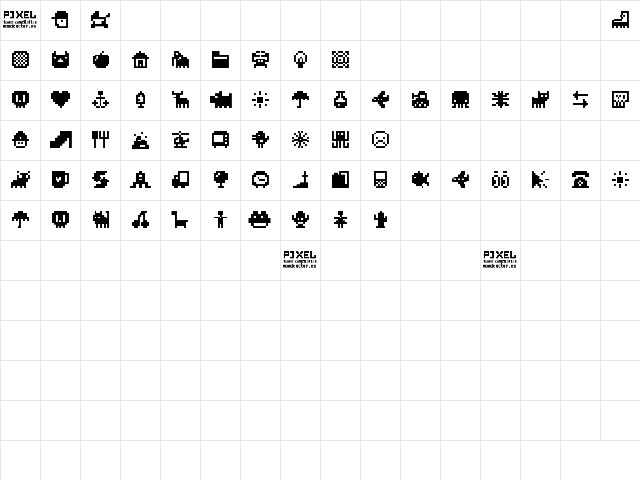
Pixel Icons Compilation Regular
| Designer | Woodcutter Manero |
Design Context for Pixel Icons Compilation Typeface
Pixel Icons Compilation is rooted in pixel-grid construction, making it a natural fit for game UI, retro computing aesthetics, and digital nostalgia projects.
A natural choice for retro game titles, chiptune music branding, 8-bit UI, and digital nostalgia projects.
Pro Tip: Pair Pixel Icons Compilation with flat colour palettes and simple geometric UI elements to reinforce its digital aesthetic.